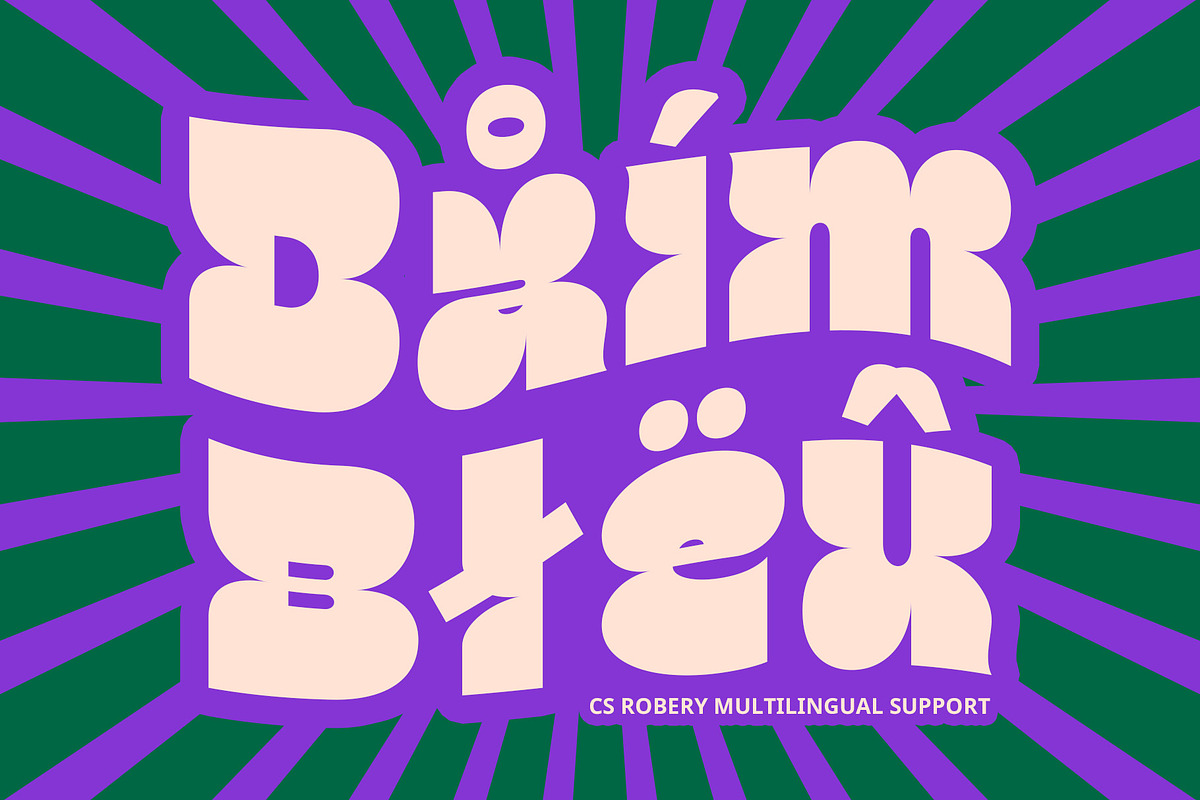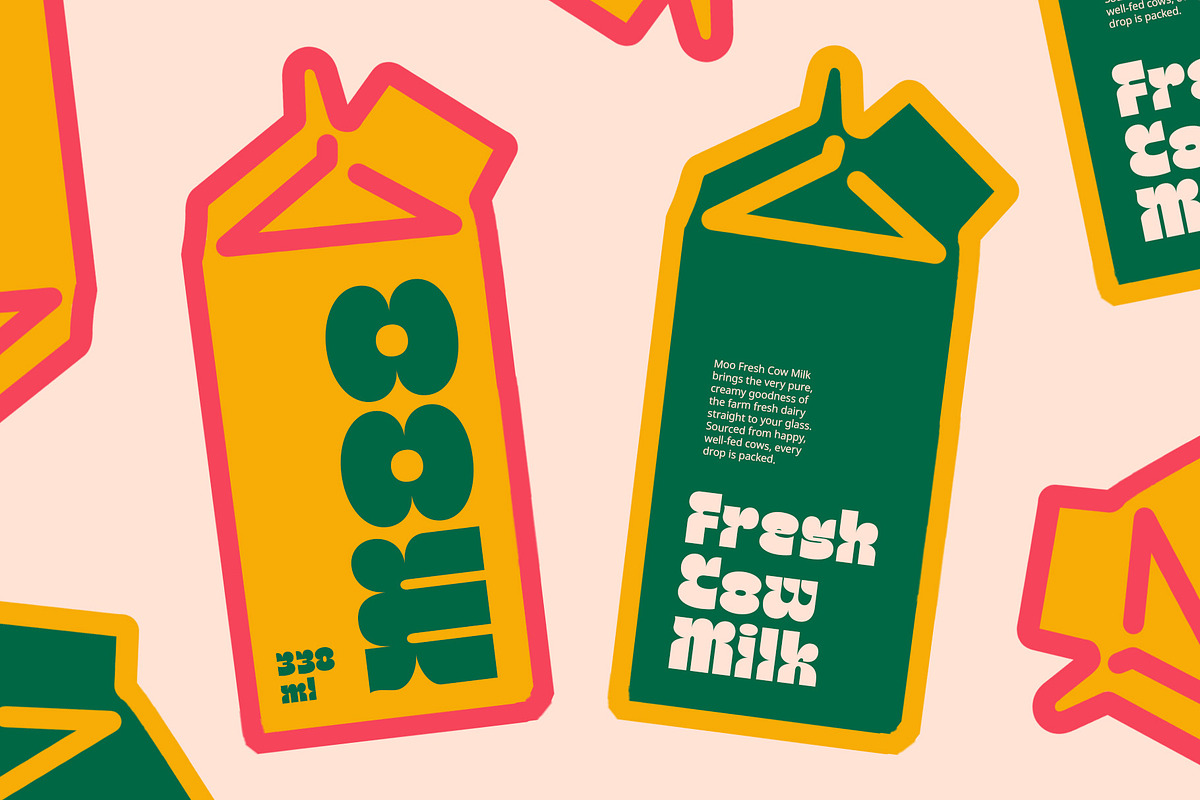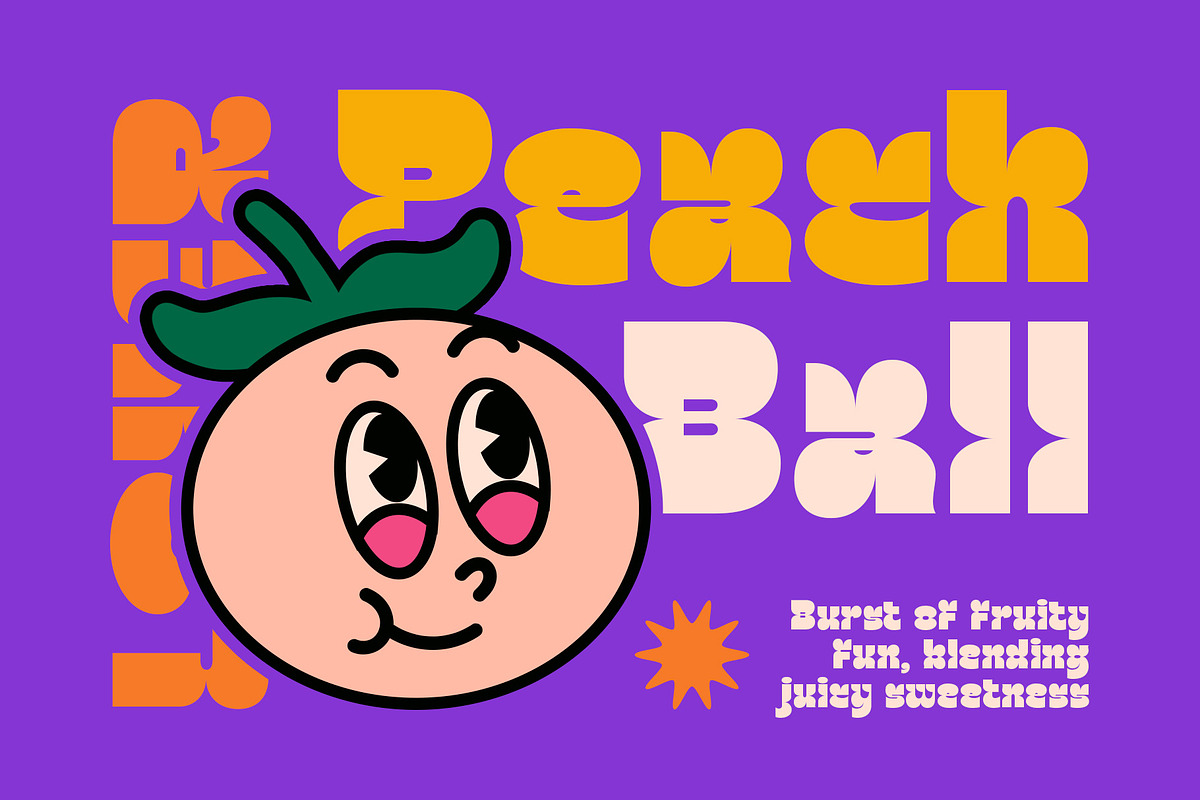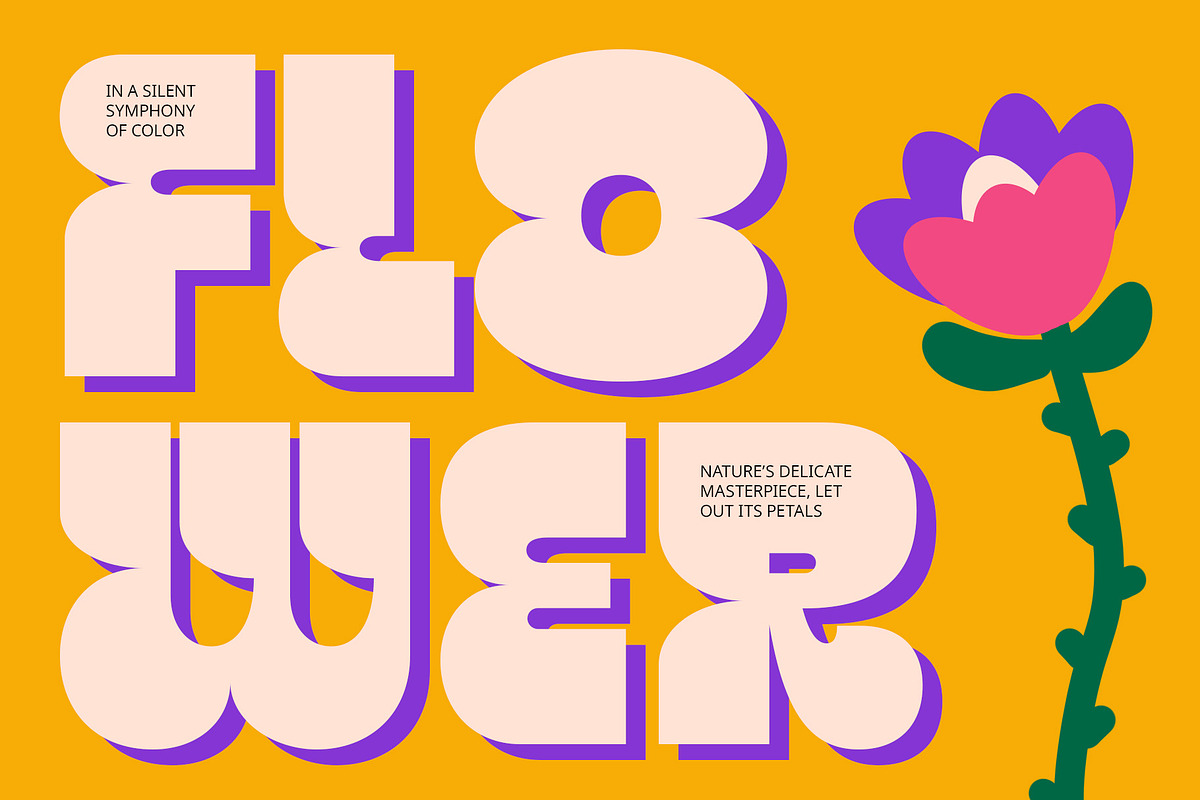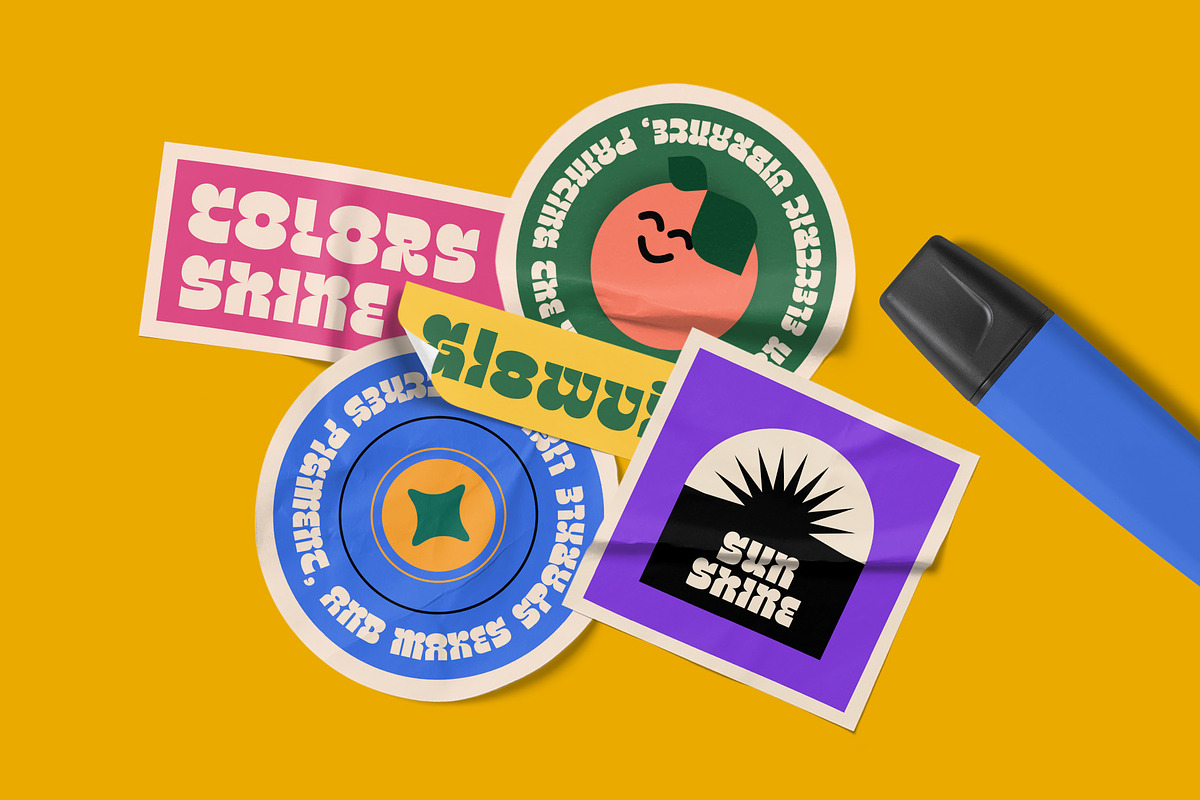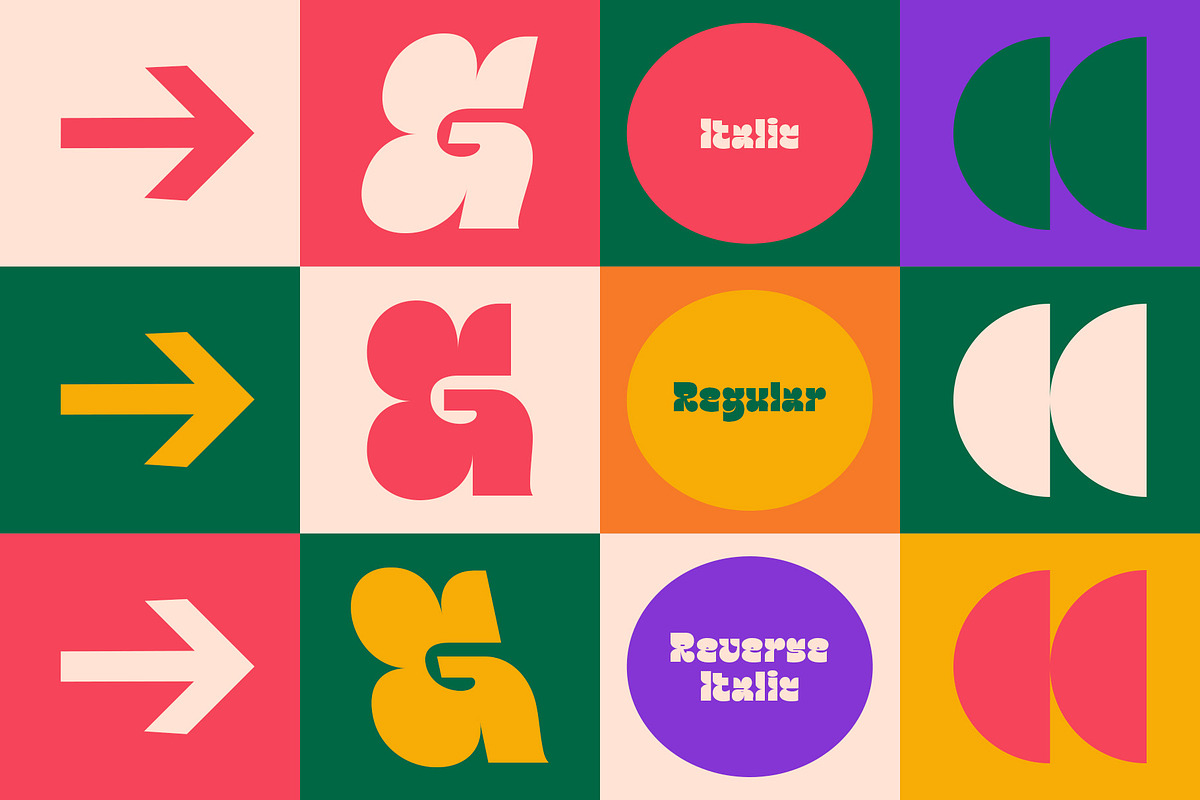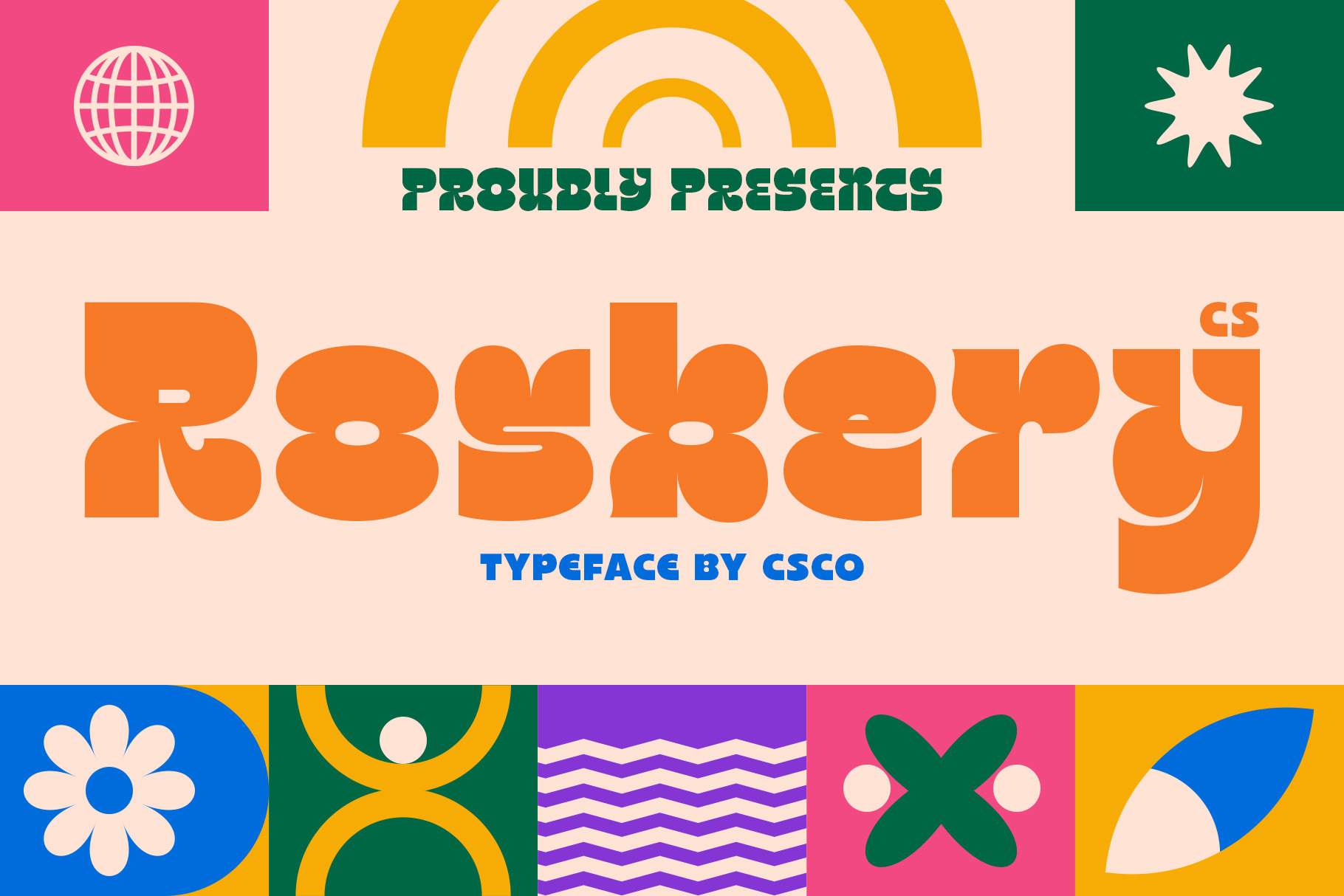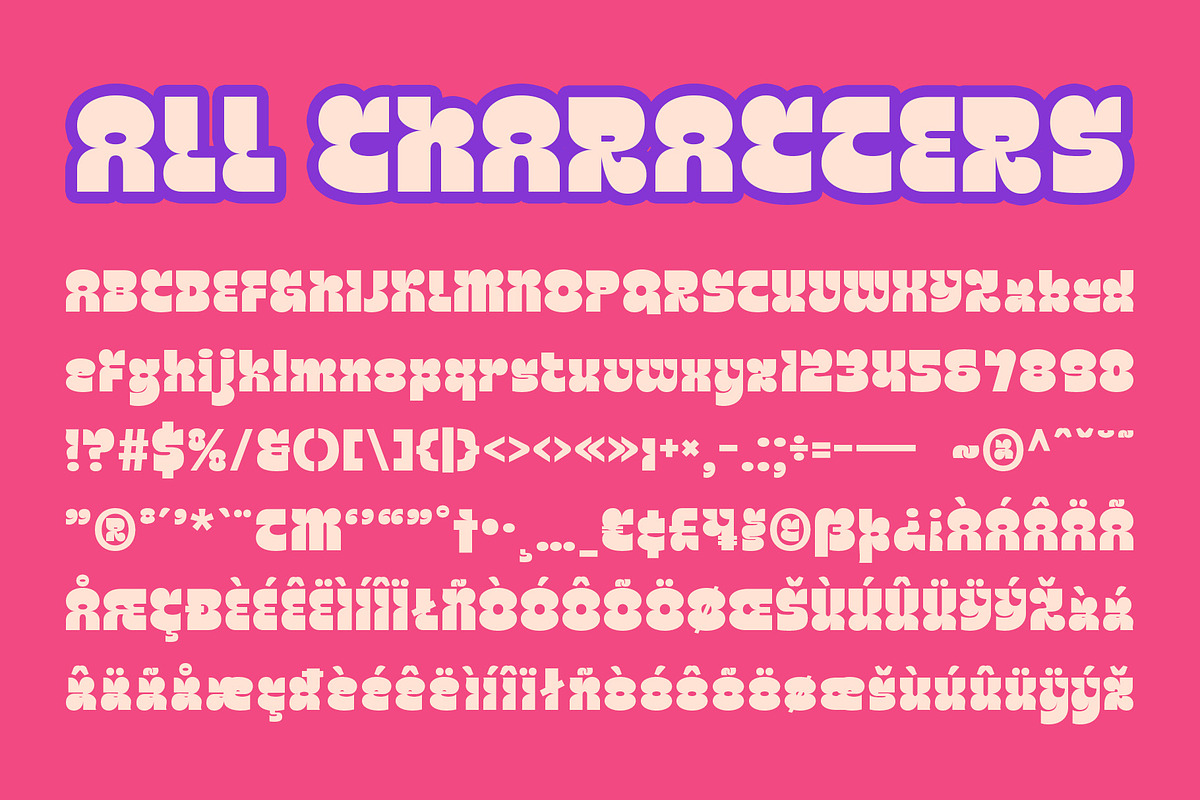
CS Rosbery – Bold Font
CS Rosbery – Bold Font: Fun, Funky, and Full of Energy
A Playful Display Font with a Bold Personality CS Rosbery is a modern display font that blends boldness with a cute, funky, and playful style. With rounded, dynamic letterforms and a lively structure, this font radiates warmth and excitement, making it perfect for designs that aim to capture joy, creativity, and energy.
Rounded and Expressive Letterforms The soft curves and chunky shapes of CS Rosbery create an approachable and friendly aesthetic. Its balanced boldness ensures strong readability while maintaining a fun and engaging look, making it ideal for projects that need a strong yet lighthearted visual appeal.
Perfect for Branding, Packaging, and Events CS Rosbery’s cheerful personality makes it perfect for branding, product packaging, and event posters. Whether you’re designing for children’s products, entertainment events, or creative promotions, this font ensures your message stands out in an eye-catching and delightful way.
A Font That Brings Joy to Any Design With its modern yet playful style, CS Rosbery is versatile and memorable, leaving a lasting impression on any audience. Its bold and funky vibe adds a unique touch to promotional materials, social media graphics, and advertising campaigns that require a fun, vibrant, and engaging look.